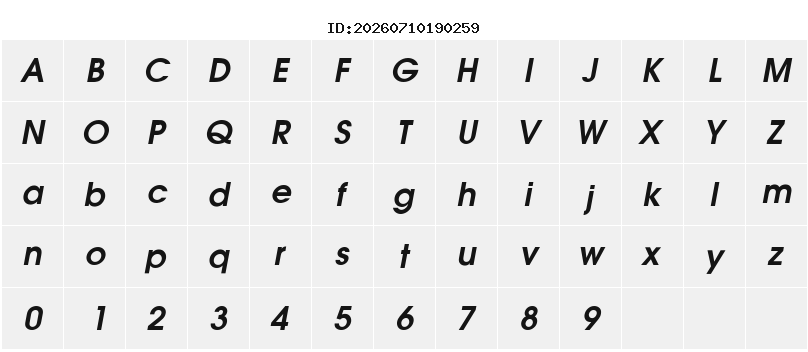
Gardenzi - DemiOblique Preview
• Font Name: Gardenzi - DemiOblique
• Full Font Name: Gardenzi - DemiOblique
• PostScript Name: Gardenzi - DemiOblique
About Gardenzi - DemiOblique.ttf
Gardenzi - DemiOblique.ttf is a modern, elegant sans-serif font designed for ultimate readability and visual harmony. Perfect for branding, headlines, web design, and print materials.